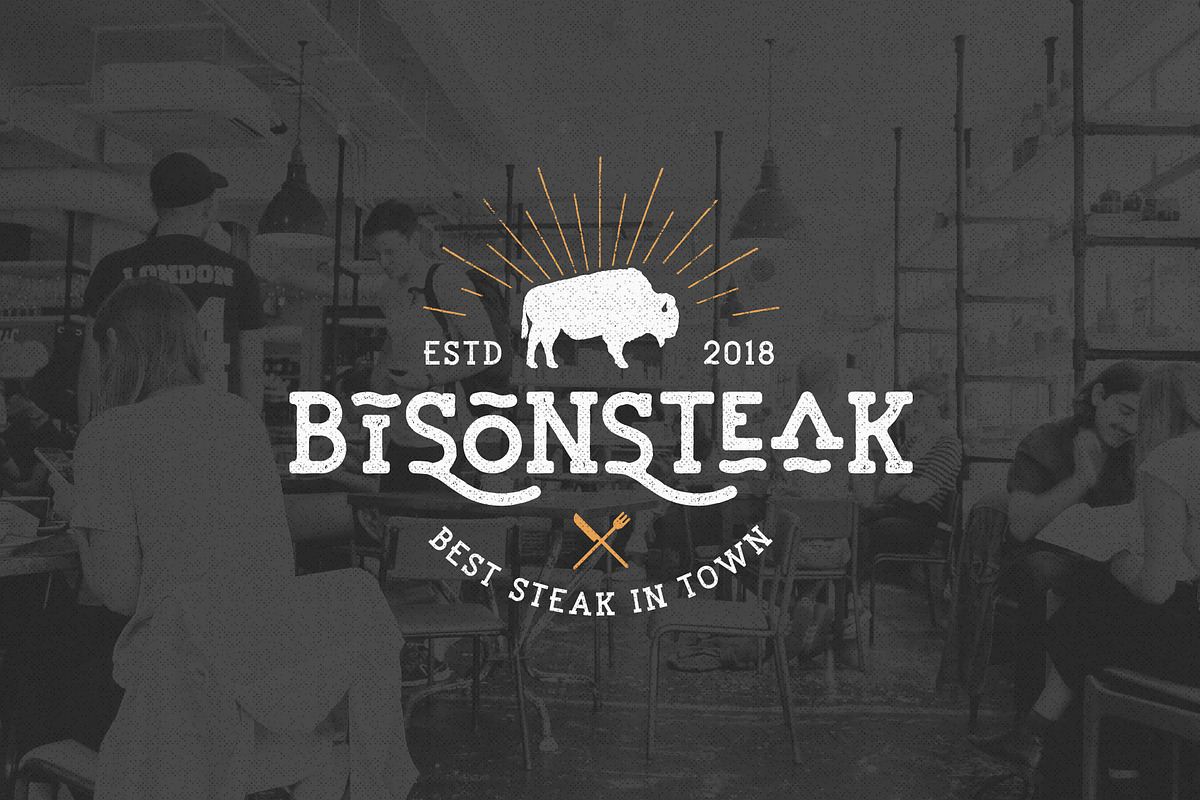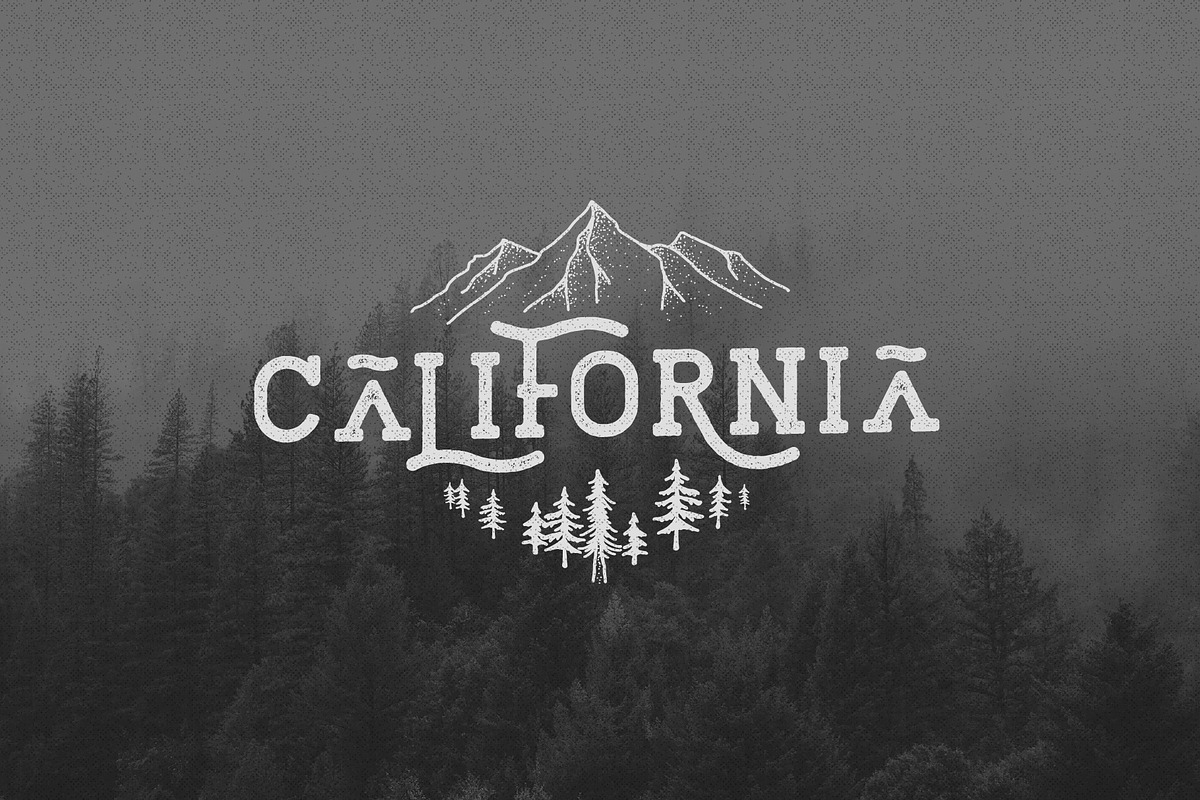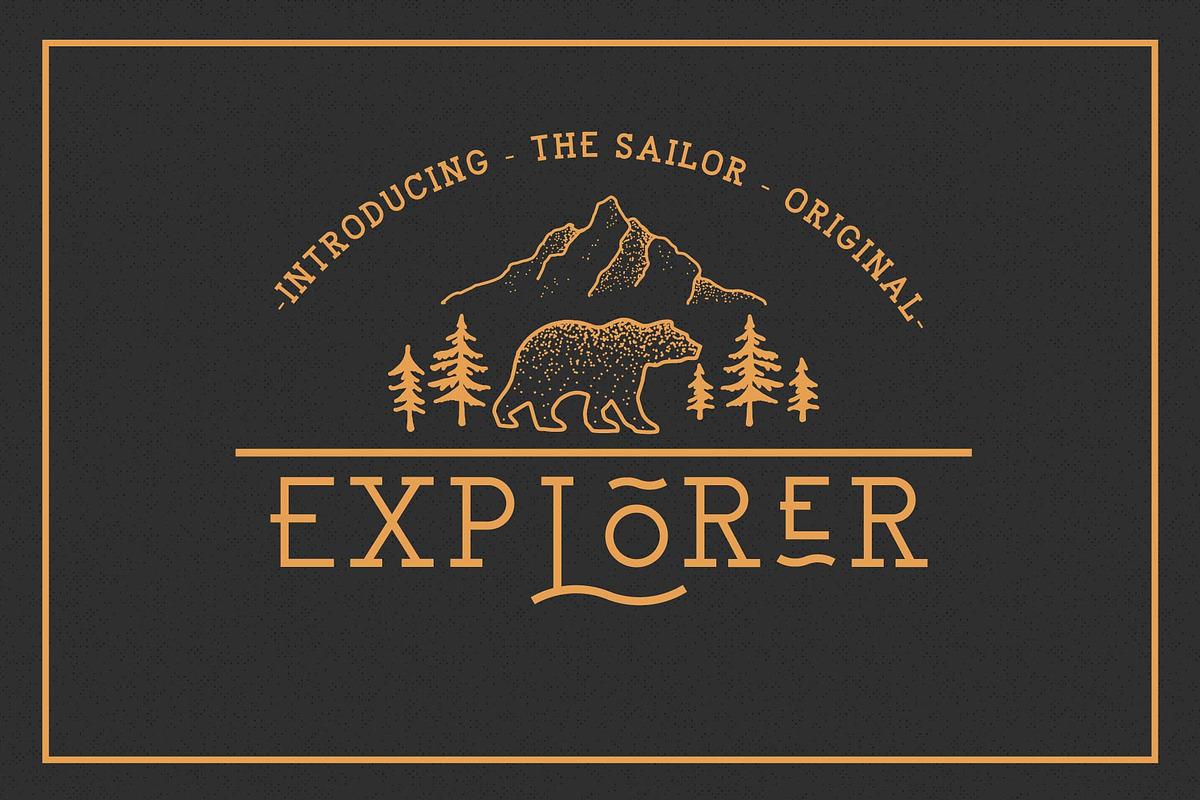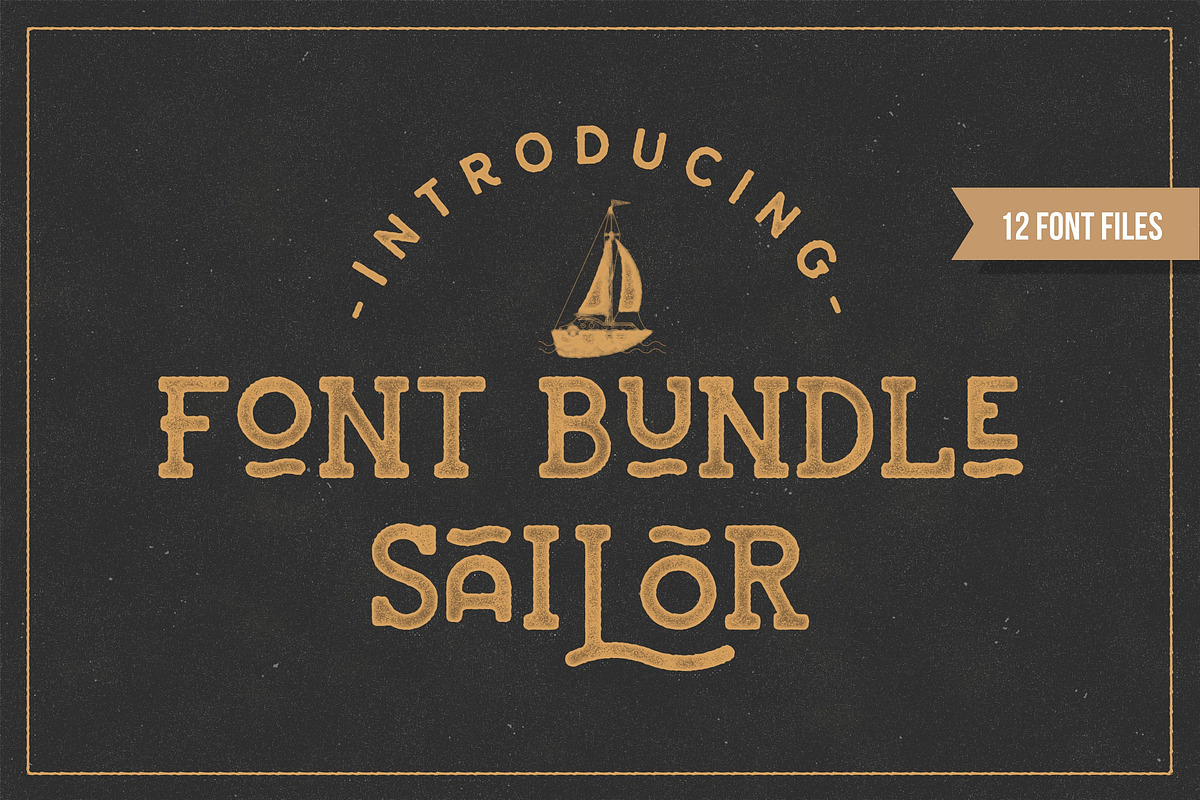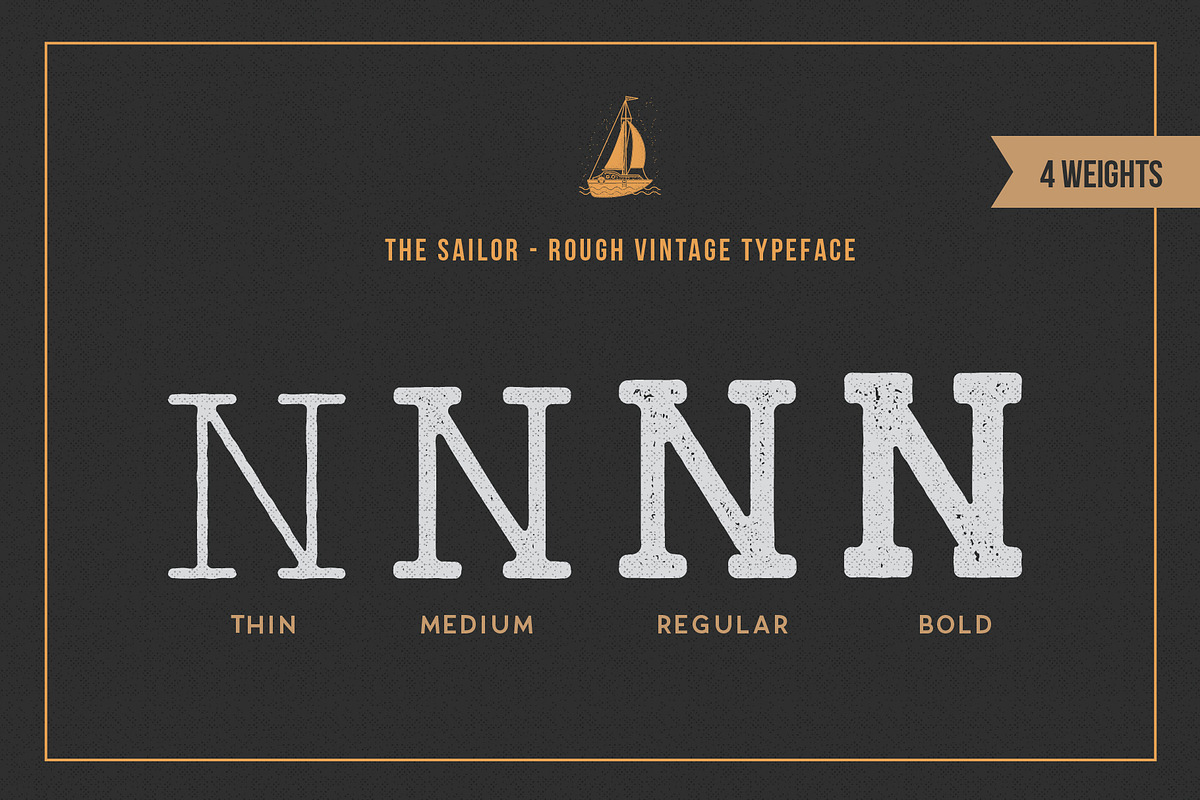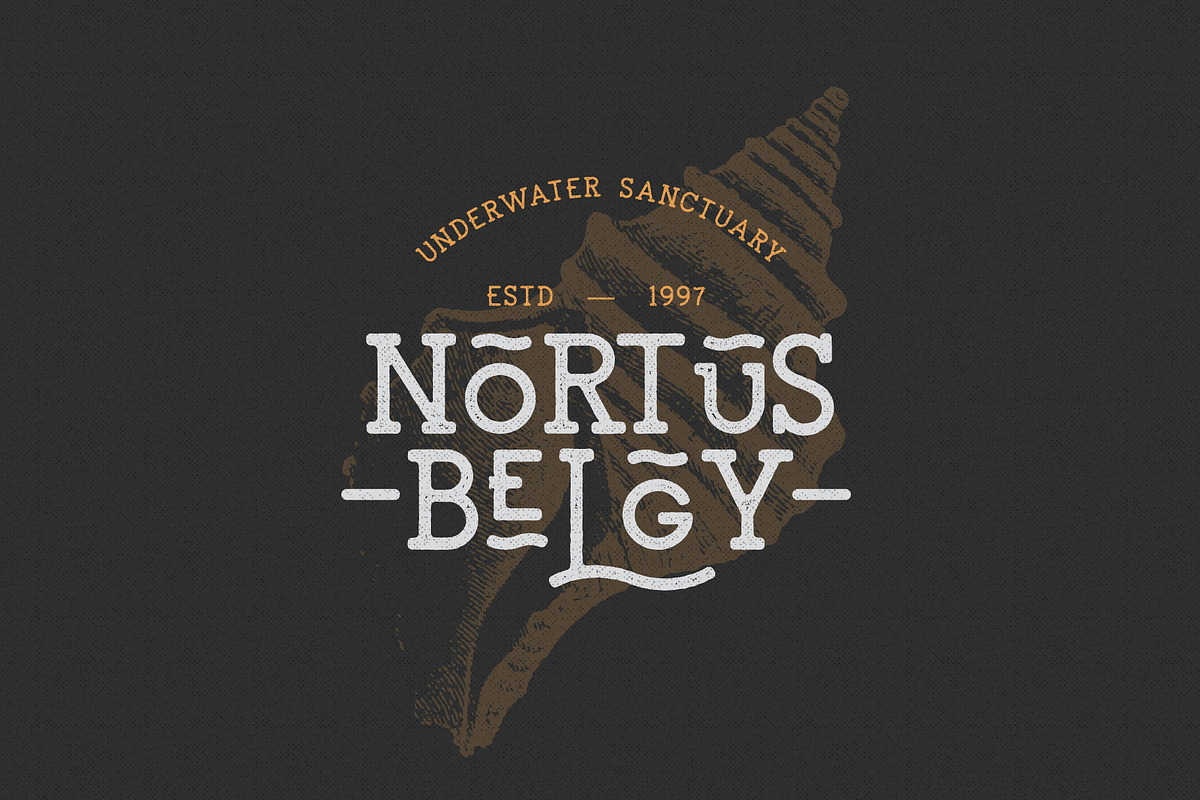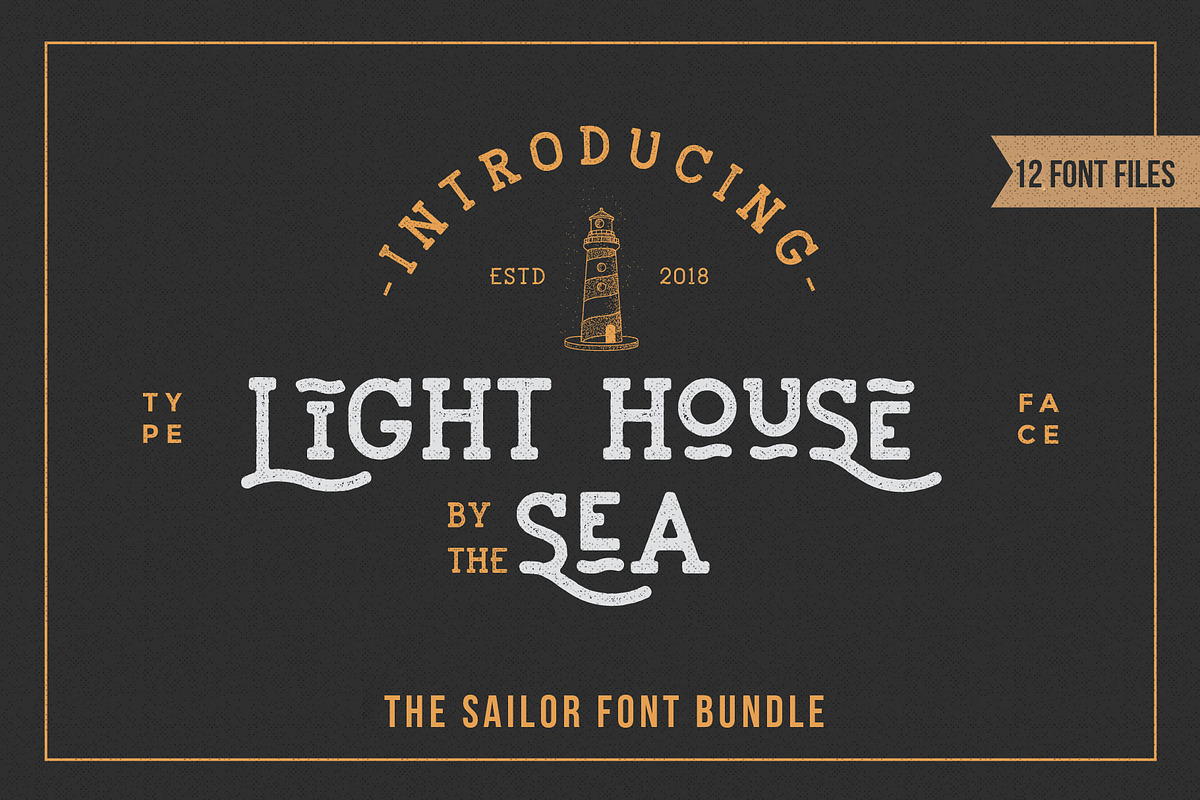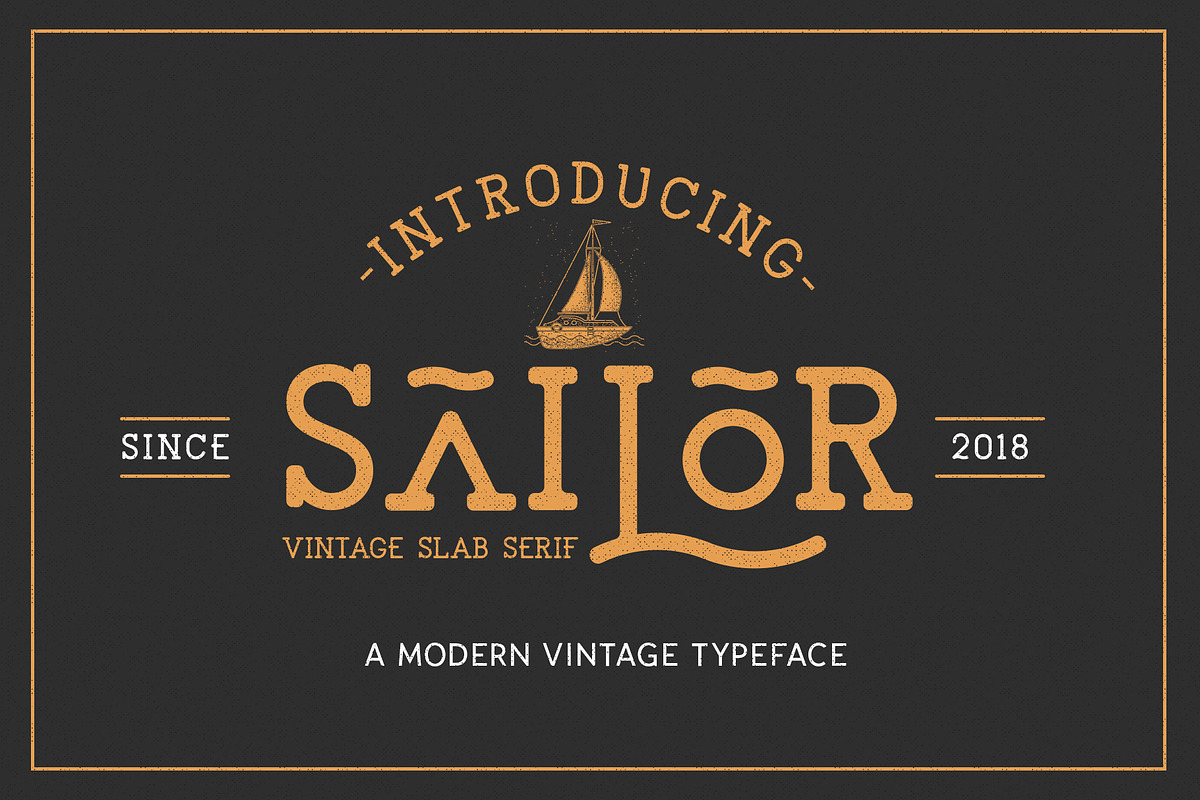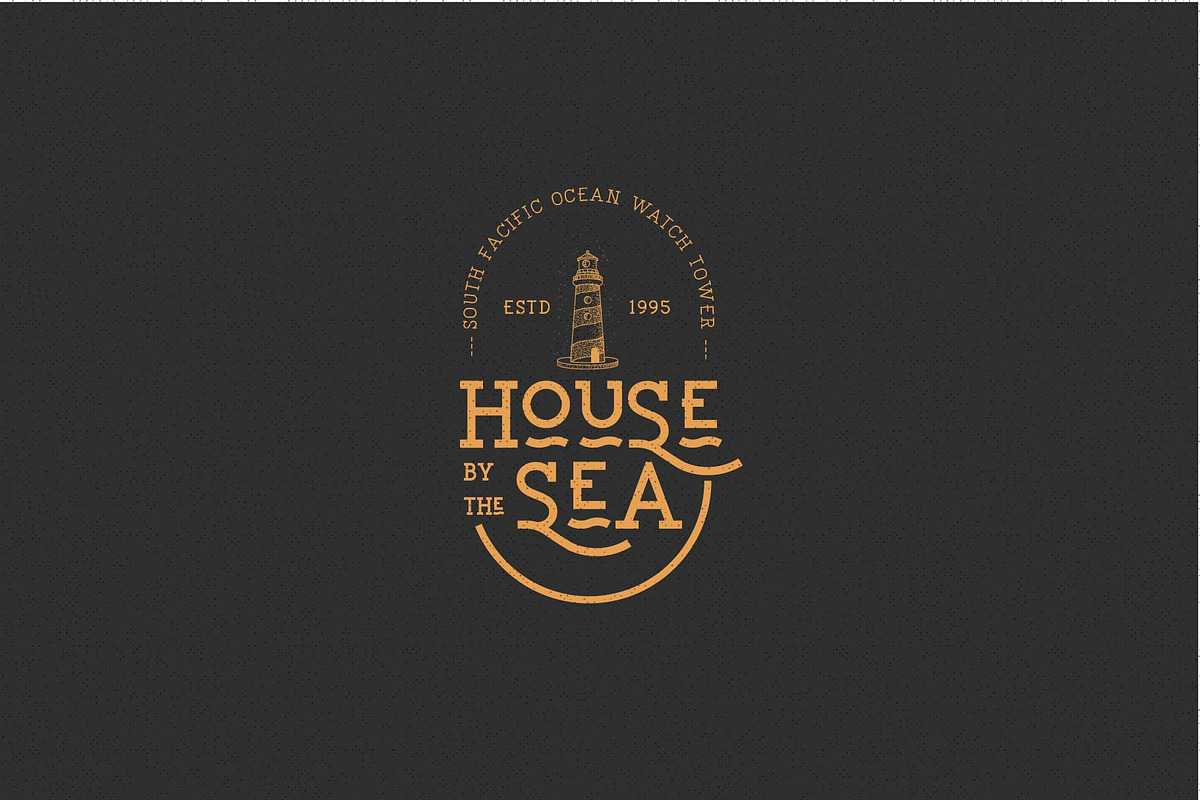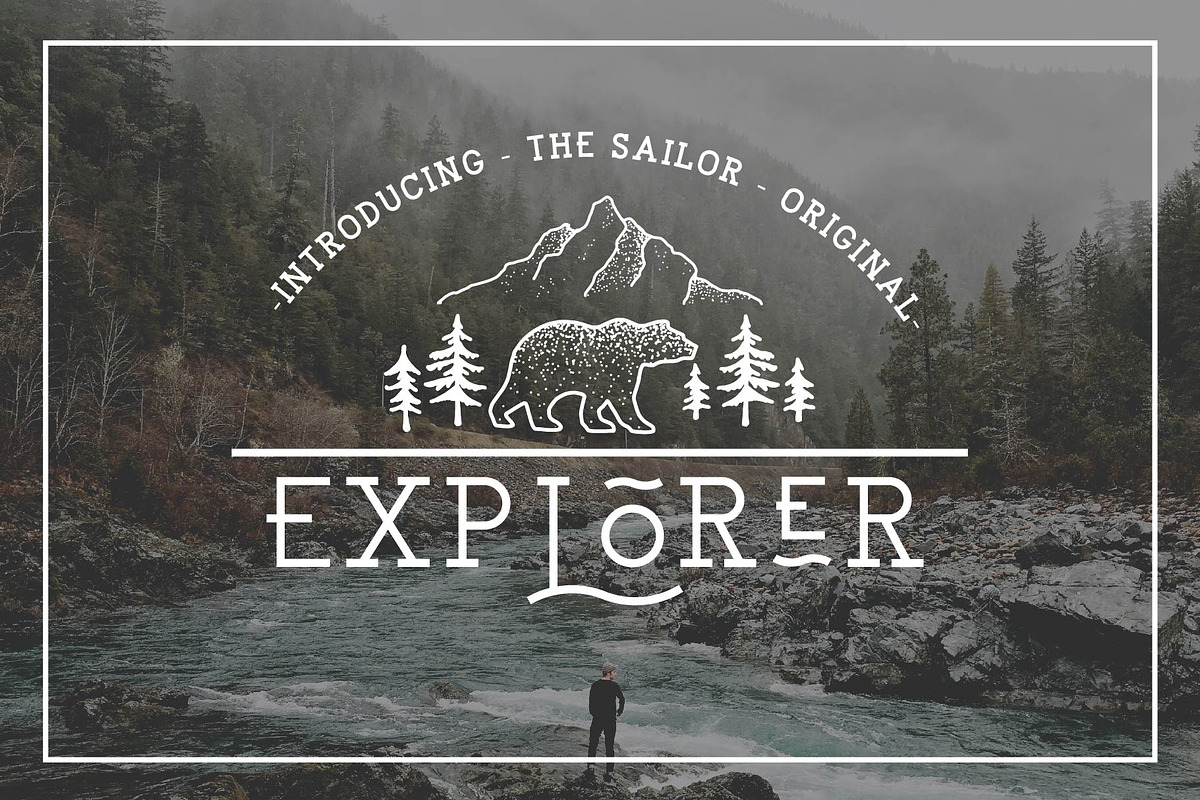
Sailor Font Bundle
What does the Sailor Font Bundle Include?
- The Lighthouse Font - 4 Vintage & Textured Font
- The Explorer Original - 4 Clean Styles Font
- The Sailor - 4 modern Vintage Rounded Edges Font